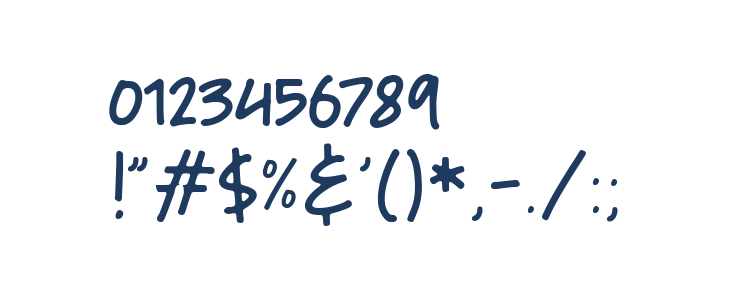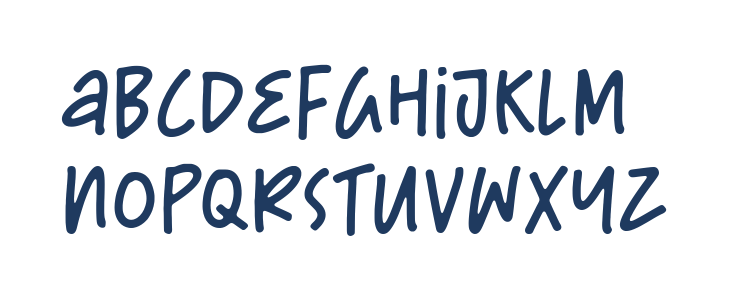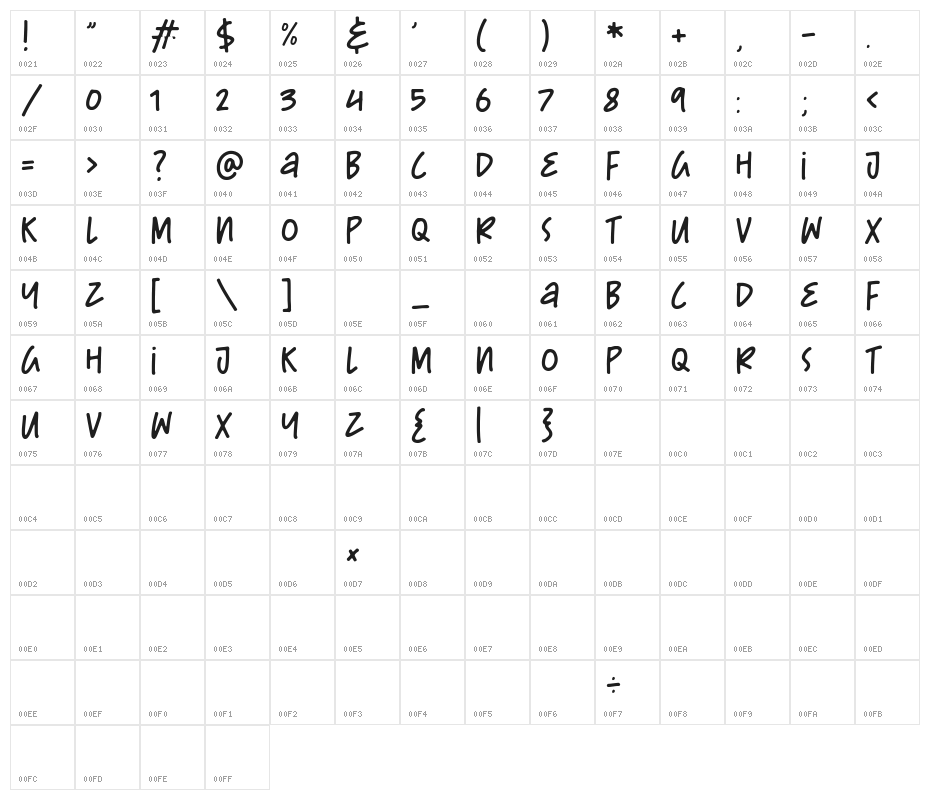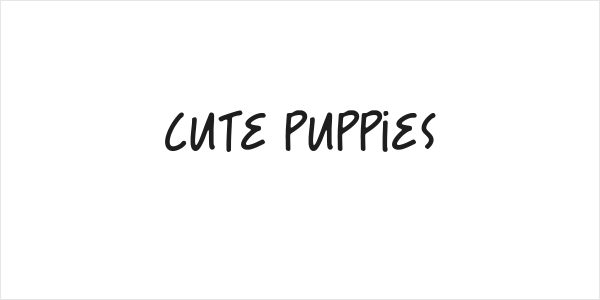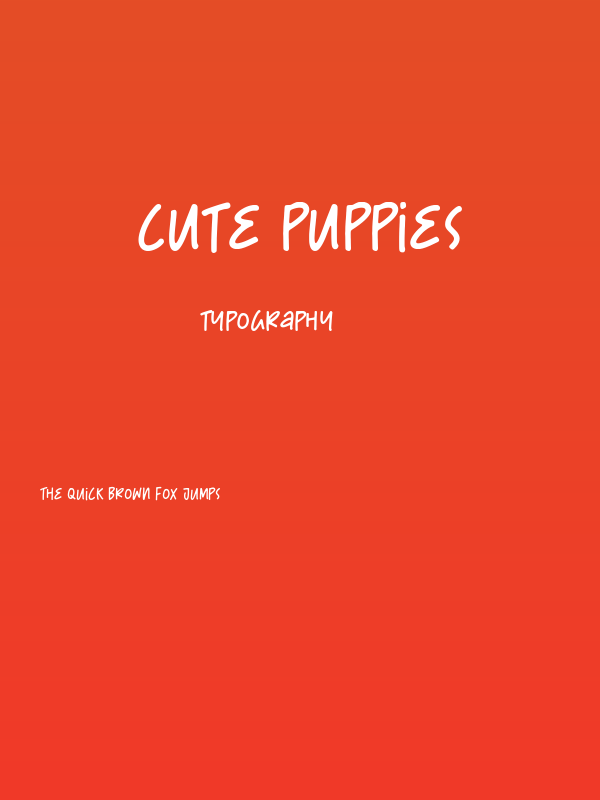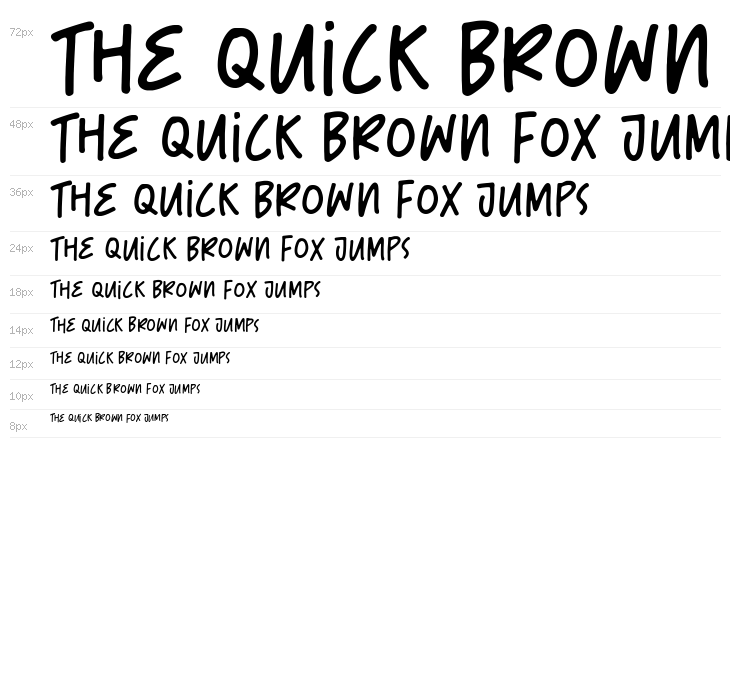
Cute Puppies Font
Cute Puppies Description
A playful, rounded handwritten typeface with consistent stroke width, casual letterforms, and a friendly, approachable appearance. The characters are slightly slanted and have a natural, informal flow, resembling marker or brush pen writing.
| Overall Style | Playful, Casual, Friendly |
| Use Case | Headlines, Logos, Informal text, Posters |
| Proposed Projects | ChildrenΓ’β¬β’s books, greeting cards, playful branding, posters, social media graphics. |